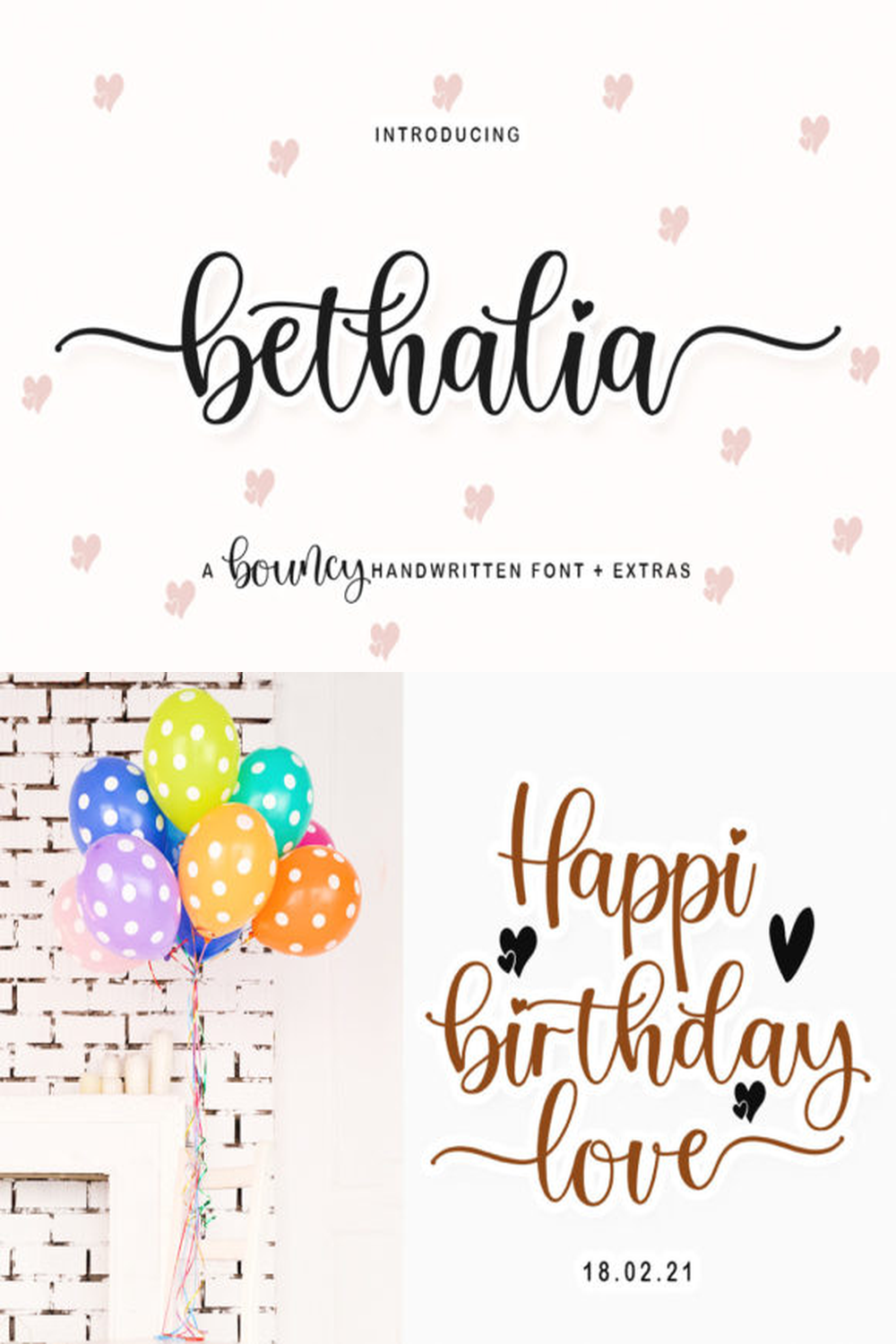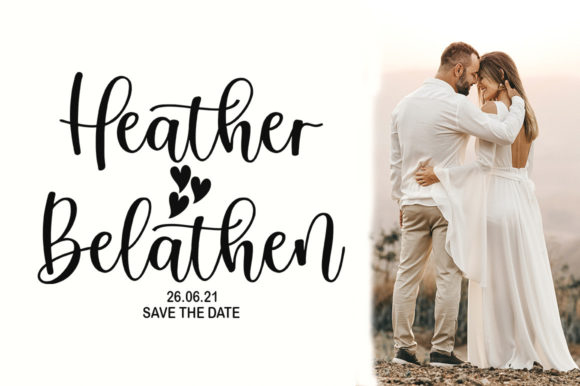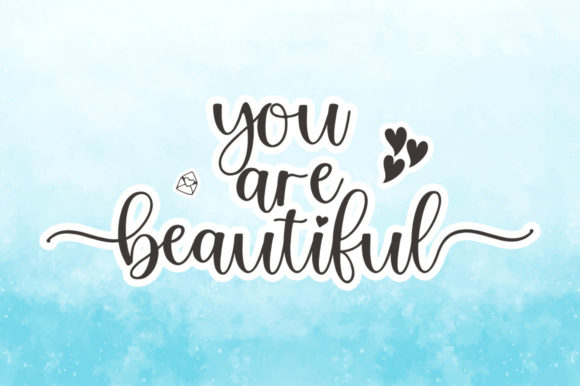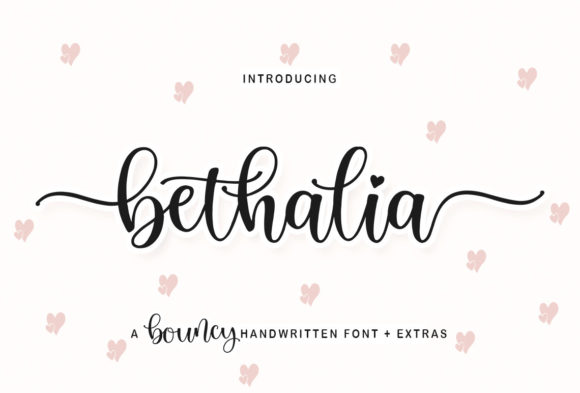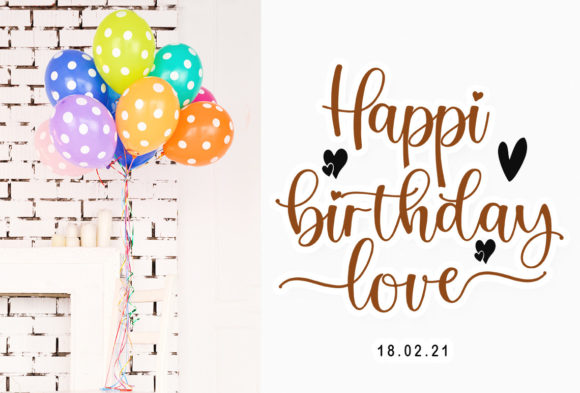
Bethalia Font: A Sweet & Bouncy Calligraphy Font for Wedding Designs
About the Bethalia Font
The wait is over! The incredible Bethalia Font is now available for your design toolkit. Bethalia is a romantic and sweet calligraphy typeface with characters that dance along the baseline. It will add a luxury spark to any design project that you wish to create! This font is PUA encoded which means you can access all of the amazing glyphs and ligatures with ease!